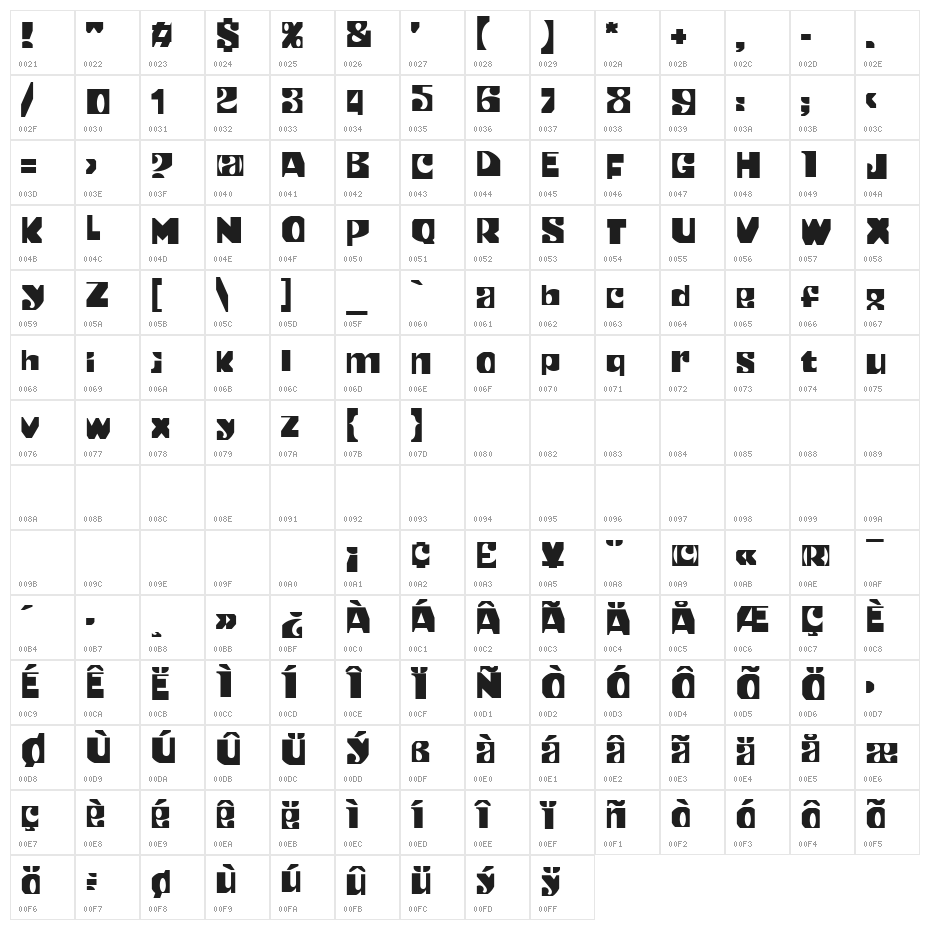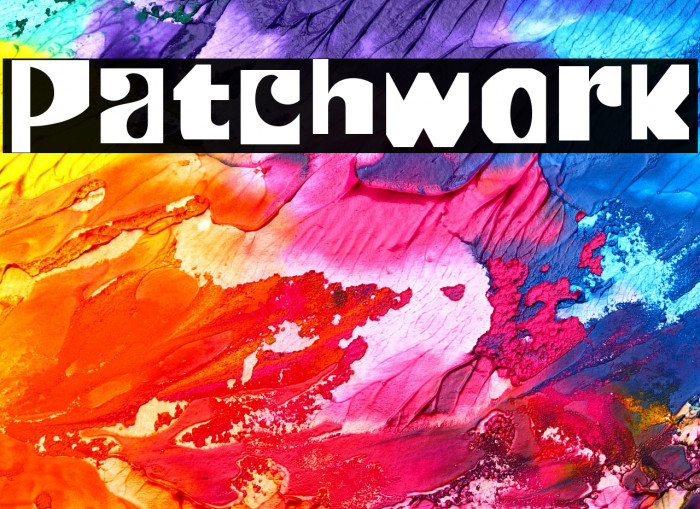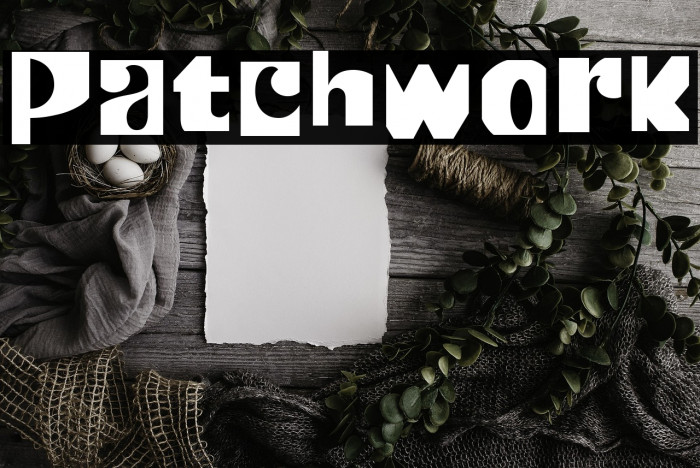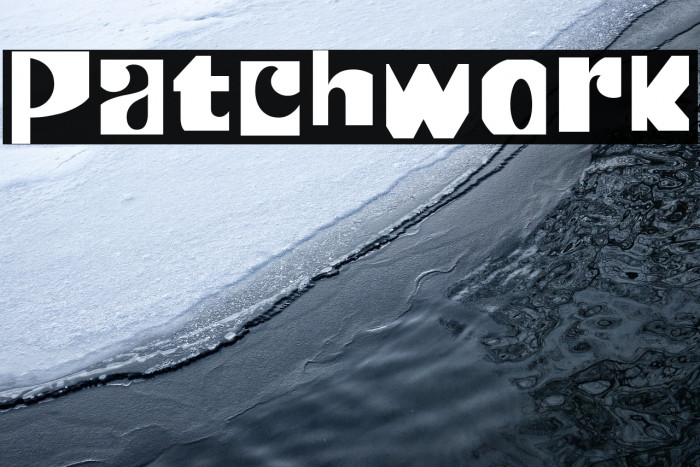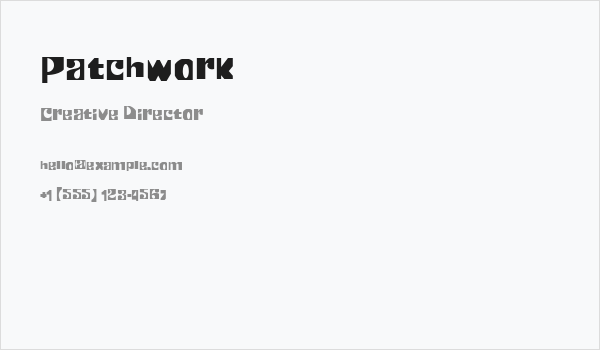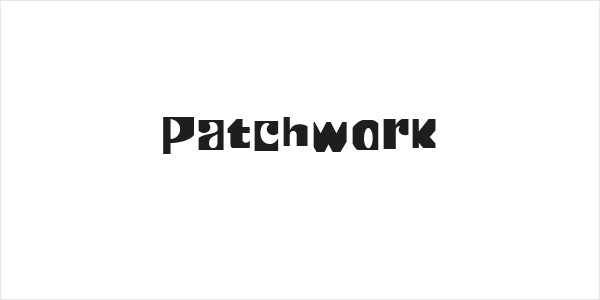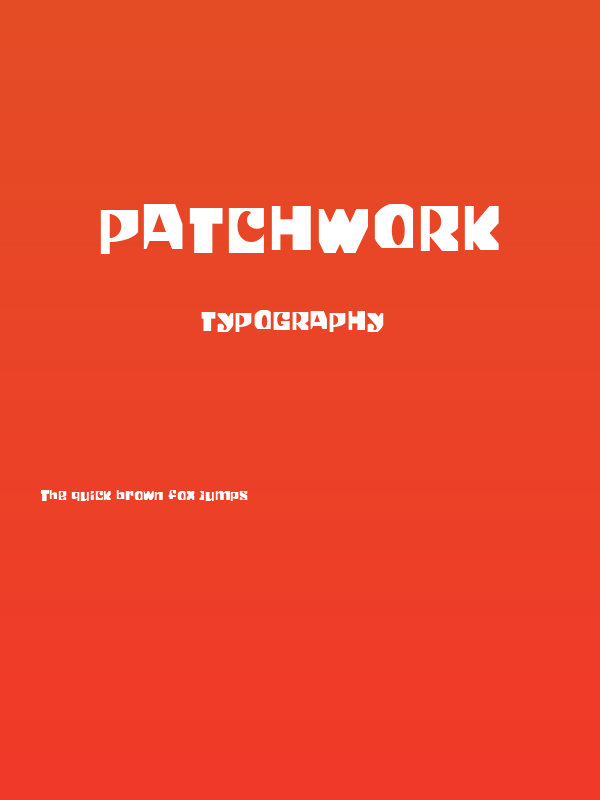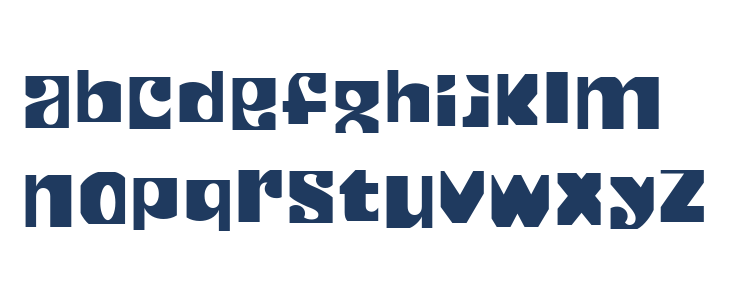
Patchwork Font
Patchwork Description
This font features a bold and striking design with a patchwork-like appearance. Each character is composed of geometric shapes that create a unique, fragmented look. The uppercase and lowercase letters maintain a consistent style, with sharp angles and contrasting solid and negative spaces. Numbers and special characters follow the same design principles, ensuring a cohesive visual identity. The font's distinct style makes it stand out, offering a modern and artistic flair suitable for creative projects.
| Proposed Projects | Ideal for branding, posters, album covers, and any project requiring a bold, artistic statement. |